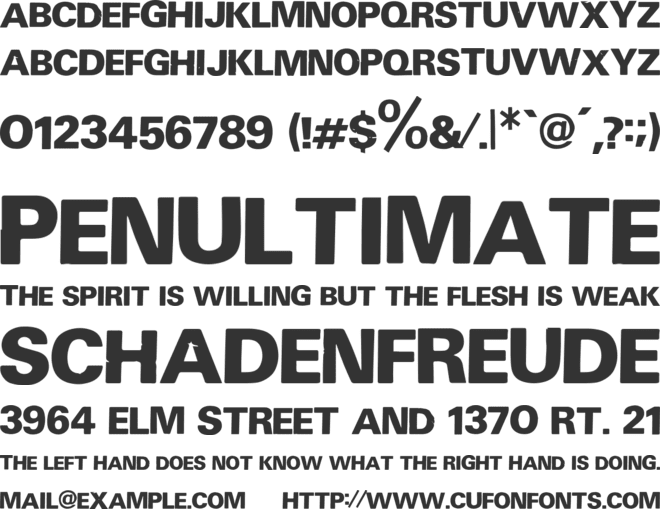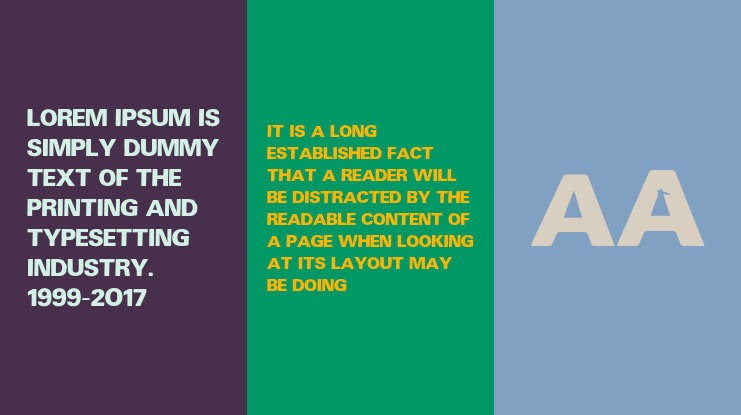
Letrashit Font
Michael Tension
I couldnt find a distressed Letraset font for a design I was doing so I made this one. I thought there must be someone else who needs one too, so here it is. DIY it like a real punk with this one ;)